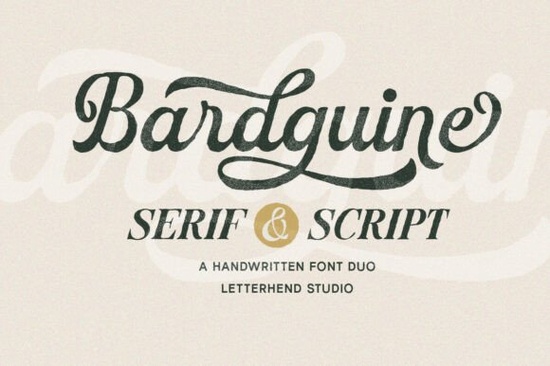
If you're on the lookout for a font that combines both elegance and versatility, the Bardguine Serif & Script Duo Font is a fantastic choice. This charming handwritten font duo brings together the sophistication of a vintage serif with the fluidity of an elegant script, making it perfect for a wide range of creative projects.
Why Choose Bardguine for Your Creative Projects?
Bardguine is designed with artisanal flair, offering a unique blend of styles that can add a touch of nostalgic charm and modern refinement to your designs. The script variant features graceful, sweeping ligatures and bold strokes, giving a handcrafted impression. Meanwhile, the serif counterpart provides balance with its sturdy, clean letterforms, creating a striking visual contrast.
Perfect for Branding and Logos
One of the standout features of Bardguine is its versatility. Whether you're designing a logo for a small business or branding materials for a new product, this font duo can help you make an impactful yet personal statement. The combination of the script and serif fonts allows for a balanced and visually appealing design, making it ideal for creating memorable logos and branding elements.
Editorial Headers and Packaging
For those working in editorial design, Bardguine can be a valuable addition to your toolkit. The script variant is perfect for adding a touch of elegance to headlines and titles, while the serif font can be used for subheadings and body text. This makes it a great choice for magazines, brochures, and other print publications. Additionally, the font's versatility extends to packaging design, where it can add a sophisticated and handcrafted feel to labels and boxes.
Retro Signage and More
Bardguine's blend of vintage and modern styles also makes it suitable for retro signage. Whether you're designing signs for a local café, a boutique, or a special event, this font can help you achieve a classic, timeless look. The font's PUA encoding means that all special characters and decorative elements are easily accessible, allowing you to add extra flair to your designs without needing additional software.
How to Use Bardguine Effectively
To get the most out of Bardguine, consider the following tips:
- Combine the Fonts: Use the script variant for titles and headings, and the serif for subheadings and body text. This creates a harmonious and visually appealing layout.
- Experiment with Colors: Play around with different color combinations to enhance the overall aesthetic of your design. Soft, pastel colors can complement the vintage feel, while bold, vibrant colors can add a modern twist.
- Add Decorative Elements: Utilize the special characters and decorative elements included in the font to add a unique touch to your designs. These elements can help you create a more personalized and eye-catching final product.
Final Thoughts
The Bardguine Serif & Script Duo Font is a wonderful addition to any designer's collection. Its blend of vintage and modern styles, along with its versatility and ease of use, make it a top choice for a variety of creative projects. Whether you're working on branding, editorial design, or packaging, Bardguine can help you create designs that are both impactful and personal.